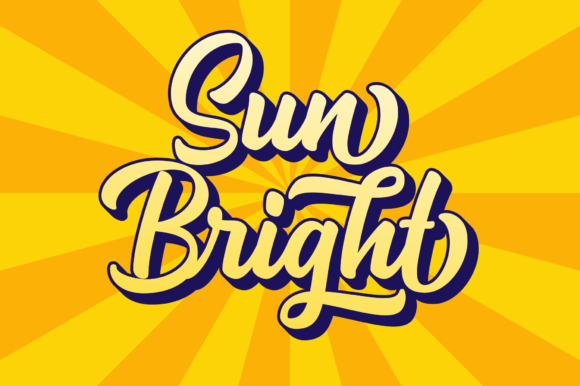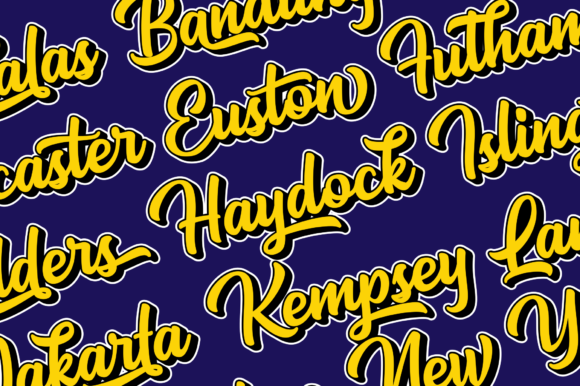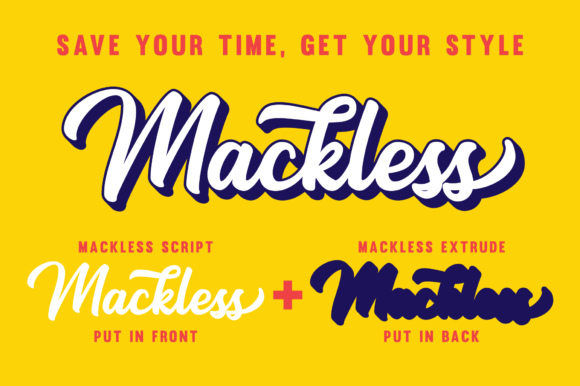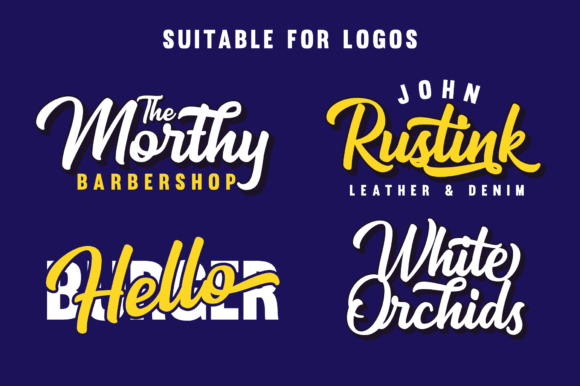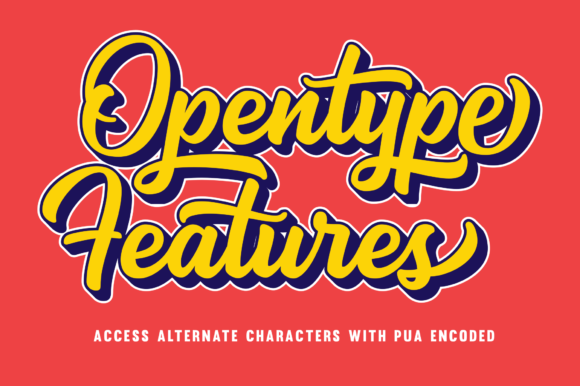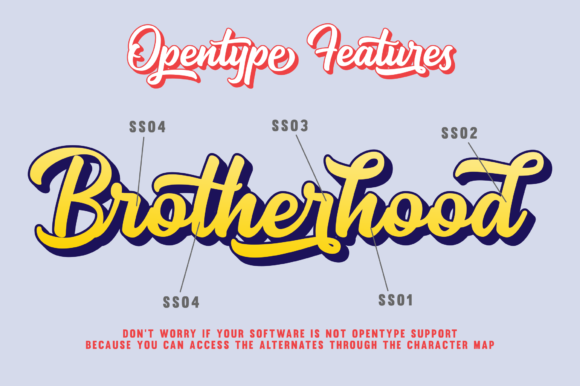
Introduction to Mackless Font
Do you remember that moment when you’re brainstorming for a creative project and you finally hit the nail on the head? The ideas start flowing, and you’re on a roll. For designers, finding the right font can be the key to unlocking that creative spark. That’s where the Mackless Font comes in – a fun and bold handwritten font that’s sure to add a unique charm to any design project.
Mackless Font
- Unique characteristic: Mackless Font features an exclusive, modern design, perfect for adding a touch of sophistication to any creative project.
- Design resource suitable for various creative projects, including logos, posters, and digital artwork.
Honest Review: Mackless Font
As a designer, I’m always on the lookout for high-quality design resources that can elevate my creative projects. Recently, I had the chance to try out the Mackless Font, and I’m excited to share my thoughts on it.
What works well: ✨ The Mackless Font is incredibly versatile, with a modern and sleek aesthetic that makes it perfect for a wide range of design projects. I’ve used it for everything from branding materials to digital graphics, and it always looks great. The font is also available for free download, which is a huge bonus for designers on a budget.
What doesn’t work well: ⚠️ One thing I wish the Mackless Font had is more font weight options. While the regular and bold weights are great, I often find myself wishing for a lighter or heavier version to really make my designs pop.
Overall, I’m really impressed with the Mackless Font. It’s a solid choice for any designer looking for a high-quality, free font to add to their design resource arsenal. Just be aware of the limited font weight options, and you’ll be golden.
- Perfect for branding materials, digital graphics, and more
Mackless Font
The Mackless Font is a high-quality, free download design resource ideal for creative projects. It features a transparent background, making it easy to use in a variety of applications.
Tips for Getting the Most Out of Mackless Font
To get the most out of Mackless Font, use it in conjunction with other design elements to create visually appealing graphics. Experiment with different font sizes, colors, and arrangements to find the perfect look for your project.
Mackless Font is commonly used in: